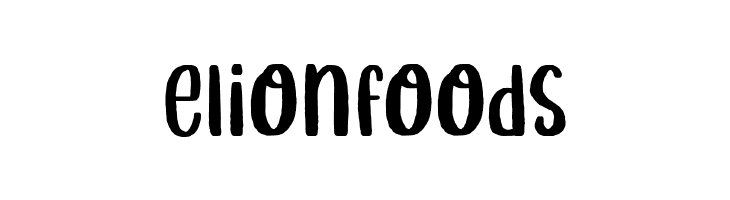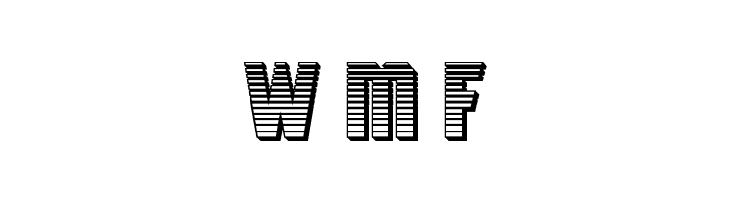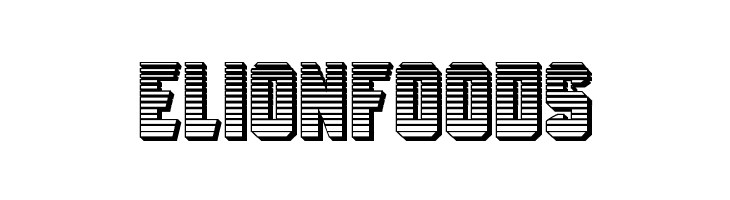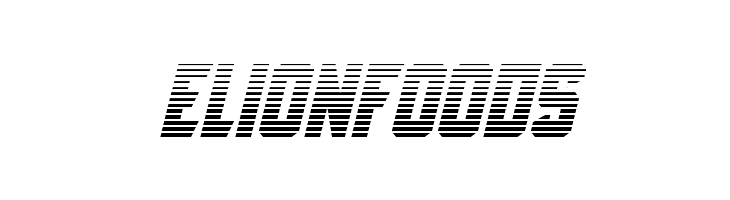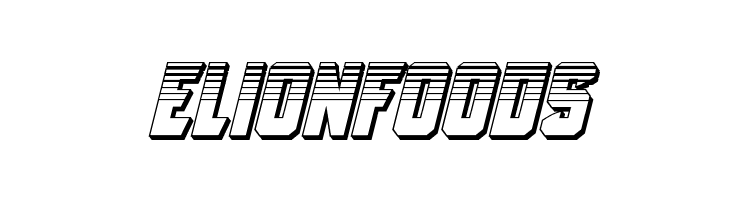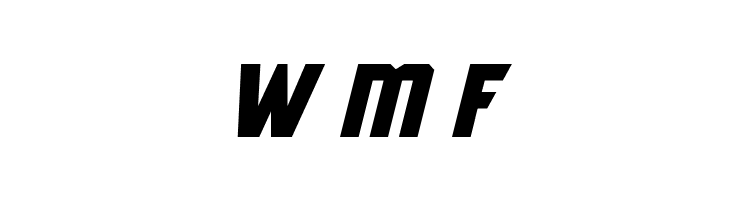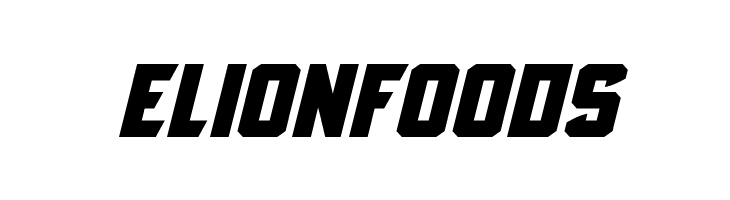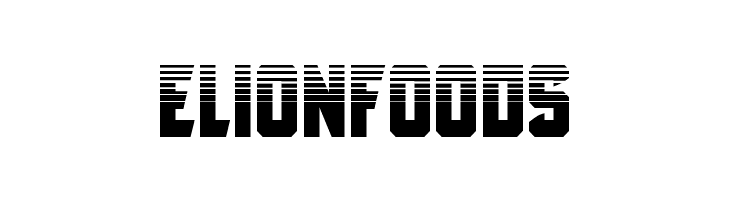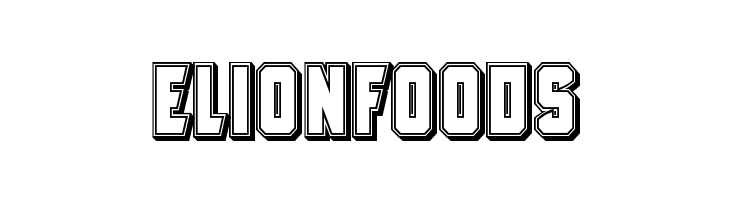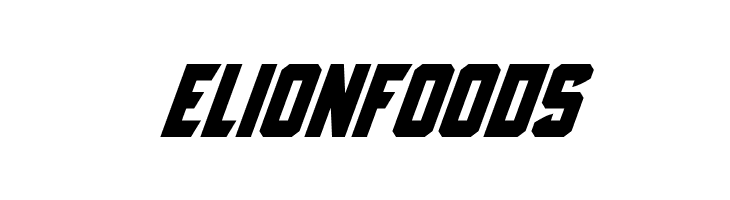
A bold, angular serif font with a modern, edgy design.
( Font by http://home.luna.nl/~xino/ )
A bold, geometric font with a futuristic and modern design.
A geometric, futuristic font with sharp angles and a digital aesthetic.
( Fonts by Spork Thug Typography - Josh Wilhelm - www.lifewithouttaffy.com/taffy/blog )
A bold, gothic-inspired font with sharp, angular edges and intricate details.
( Fonts by Allouse Studio )
A bold, playful handwritten font with thick strokes and a casual style.
( Andhi Yulianto - creativemarket.com/great19 )
A bold, slanted font with dynamic and energetic letterforms.
A modern sans-serif font with rounded edges and uniform strokes.
A bold, rounded font with a playful and friendly appearance.
A modern, geometric font with thin strokes and balanced spacing.
A modern, rounded sans-serif font with a clean and approachable style.